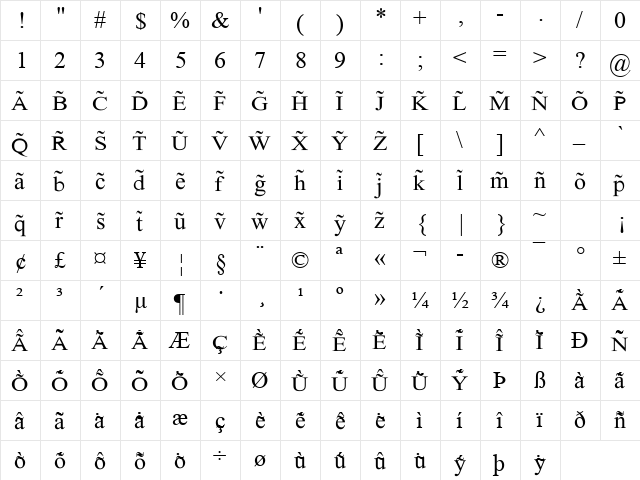
Times New Roman SUSY Regular
| Foundry | Monotype Typography |
| Designer | Monotype Type Drawing Office - Stanley Morison, Victor Lardent 1932 Plus modified by Don Lincoln 2002. |
Design Context for Times New Roman SUSY Typeface
Times New Roman SUSY offers clean, dependable letterforms without strong stylistic allegiance, making it a practical choice for designers who need flexibility.